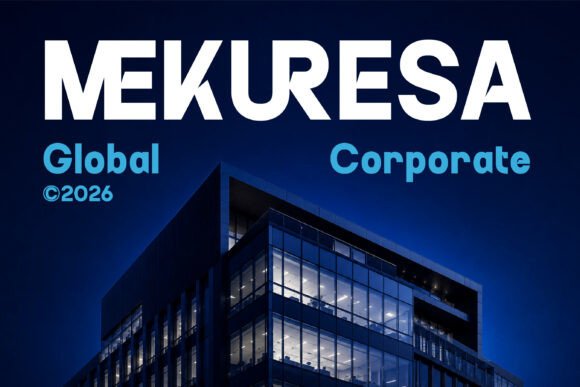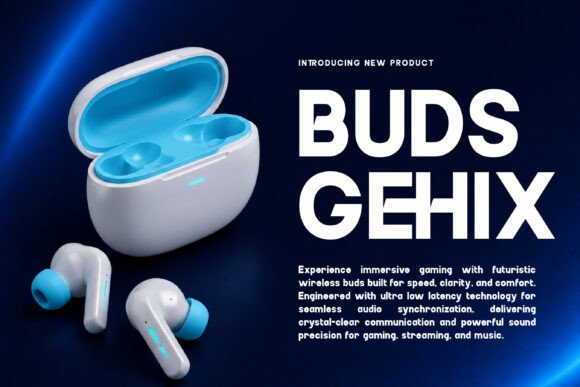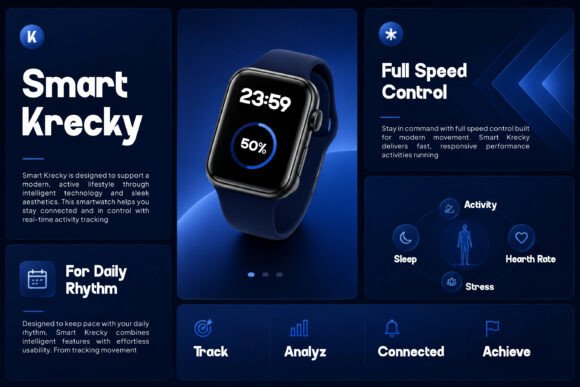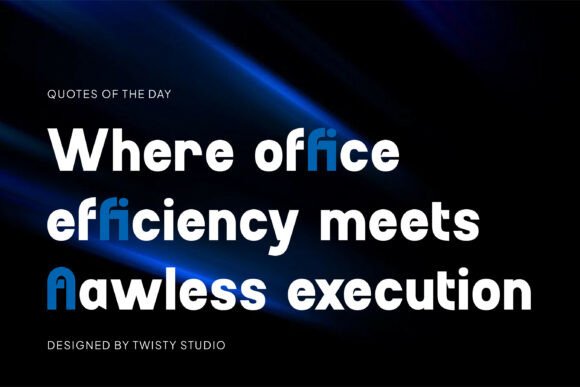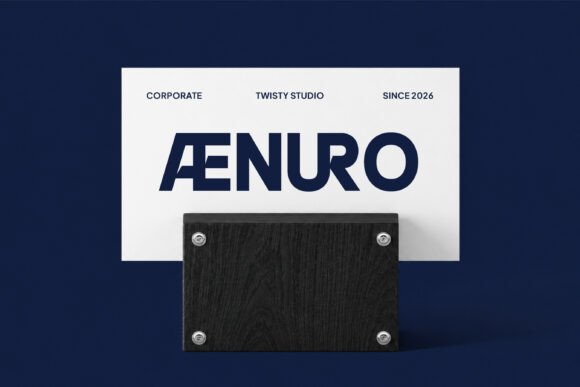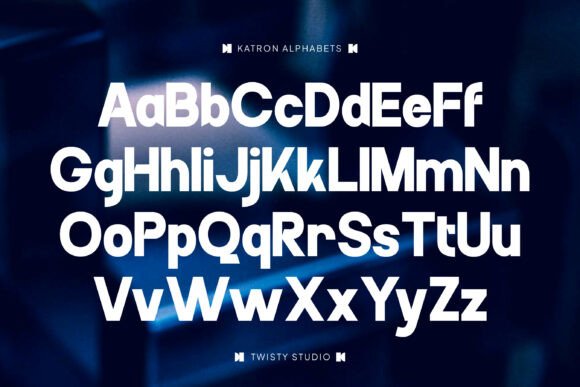
Introduction to Katron Font Font
Fonts play a crucial role in design, and the Katron Font font is a typeface that brings both character and versatility to any project. Whether you’re working on a branding project, a website, or a print design, the Katron Font font offers a unique style that can elevate your work.
Katron is a modern minimalist sans serif typeface designed to create clean, professional, and highly versatile logo designs.
Featuring balanced proportions, sleek letterforms, and a refined geometric structure, Katron delivers a contemporary visual style that feels elegant, simple, and timeless Its minimalist appearance allows it to adapt effortlessly across branding and digital projects while maintaining excellent readability and strong visual identity.
Key Features of Katron Font Font
Why Choose Katron Font Font?
The Katron Font font is more than just a typeface – it’s a design tool that helps you communicate your message with style and clarity. Its unique character set and versatile design make it suitable for a wide range of applications, from elegant invitations to bold headlines.
With its carefully crafted letterforms and balanced proportions, the Katron Font font ensures readability and visual appeal across all mediums.
What makes Katron Font font special?
The Katron Font font stands out with its unique design, exceptional readability, and versatility across various design applications.